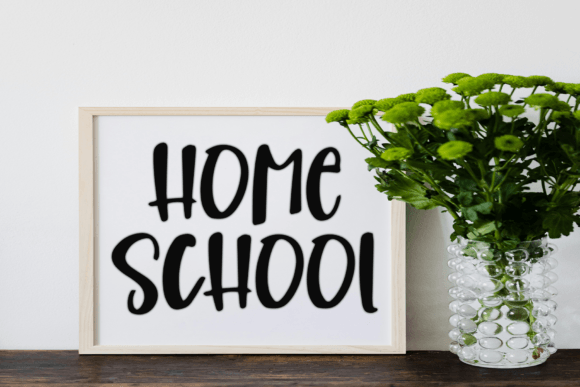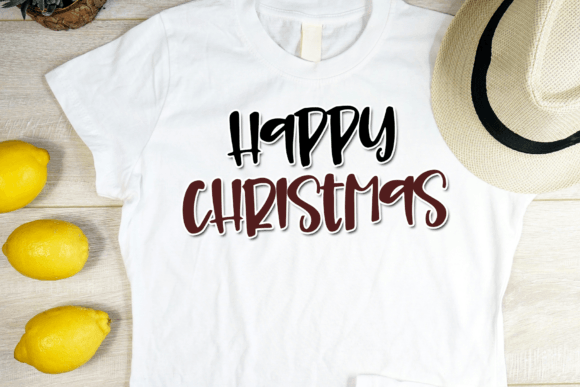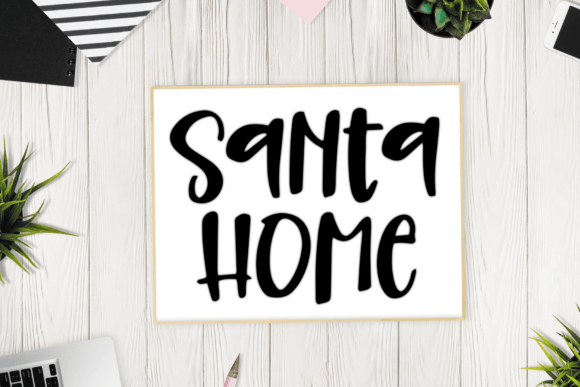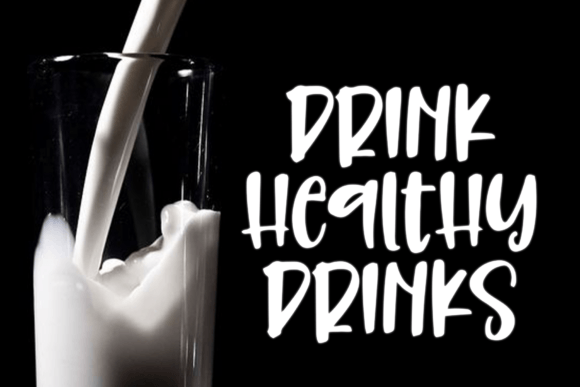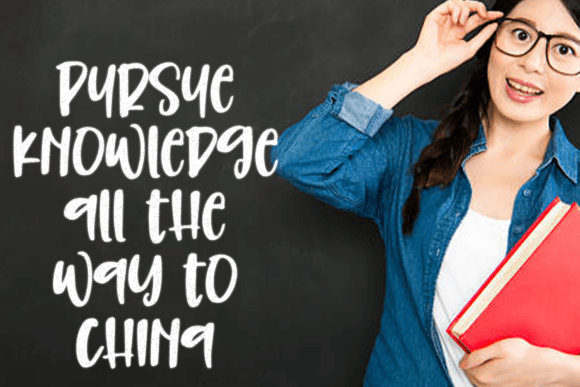
Hello Christian Font: Elevate Your Designs with Elegance and Class
In the world of typography, fonts play a crucial role in conveying the tone and personality of a design. For designers and crafters seeking to add a touch of sophistication and elegance to their projects, the Hello Christian font is an excellent choice. This trendy handwritten font boasts a contemporary atmosphere and impeccable form, drawing inspiration from timeless classic calligraphy.
The Essence of Hello Christian Font
Hello Christian is a beautifully crafted font that exudes refinement and poise. Its unique blend of traditional calligraphy and modern flair makes it an ideal choice for a wide range of design applications, from wedding invitations and branding materials to digital media and craft projects. With its elegant strokes and precise lettering, Hello Christian is sure to elevate your designs to new heights.
Key Features of Hello Christian Font
- Trendy Handwritten Style: Hello Christian features a stylish handwritten design that adds a personal touch to any project.
- Contemporary Atmosphere: The font’s modern flair ensures it stays relevant and fresh, making it perfect for designs that require a current aesthetic.
- Impeccable Form: Inspired by classic calligraphy, Hello Christian boasts precise lettering and elegant strokes, giving it a sophisticated look.
- Versatility: This font is suitable for a variety of design projects, including print and digital media, crafts, and more.
Uses for Hello Christian Font
The versatility of Hello Christian makes it an excellent addition to any designer’s toolkit. Here are some popular use cases for this elegant font:
- Wedding Invitations and Stationery: Add a touch of romance and sophistication to your wedding designs with Hello Christian.
- Branding and Logo Design: Use Hello Christian to create a memorable brand identity that exudes elegance and refinement.
- Digital Media: Enhance your social media graphics, blog posts, and website content with the Hello Christian font.
- Crafting and DIY Projects: Perfect for crafters, Hello Christian can be used for handmade cards, journaling, and other paper crafts.
Tips for Using Hello Christian Font Effectively
To get the most out of Hello Christian, consider the following tips:
- Pair with Complementary Fonts: Combine Hello Christian with simpler fonts to create visual interest and hierarchy in your designs.
- Experiment with Colors: Take advantage of Hello Christian’s elegance by pairing it with a range of colors, from classic black and white to bold and bright hues.
- Play with Sizes: Use Hello Christian in various sizes to create emphasis and add depth to your designs.
Hello Christian font is a stunning addition to any designer’s collection. Its unique blend of classic calligraphy and modern flair makes it an excellent choice for a wide range of projects. With its elegance, versatility, and impeccable form, Hello Christian is sure to elevate your designs and leave a lasting impression.